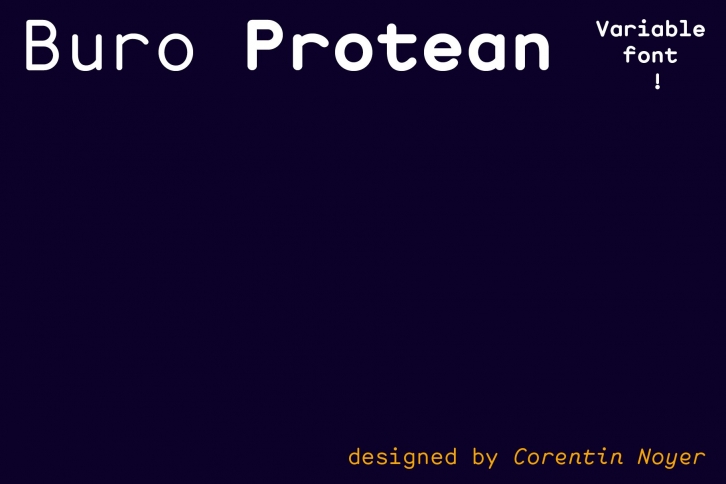
Buro family is a modern rounded monospace font, both geometric and stable in it’s Steady (Regular), Ordinary (Medium), Hefty (Bold) styles, and cursive and animated in it’s Moved (Italic) and Excited (Medium Italic) styles.
The Buro design is inspired by the cursive font used in the 1950’s Olympia De Luxe typewriter. The Buro is characterized by it’s monolinear outline (low contrasts, light optical corrections) and it’s rounded endings that make it softer and easy to use in reading contexts as varied as possible (book, website, mobile application, logotype, visual identity, etc.) The simplicity of his design based on elementary geometric shapes, as well as these open counterforms (grotesk ending) and his big punctuation allows him to ensure versatility and good readability (and lisibility). These trumps for reading are supported by a glyphset for extended Latin (497 glyphs), and some fun ligatures.